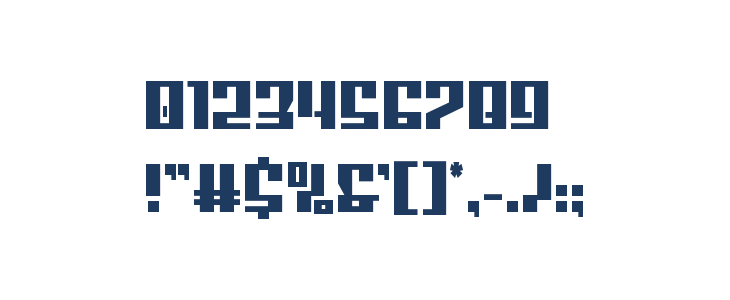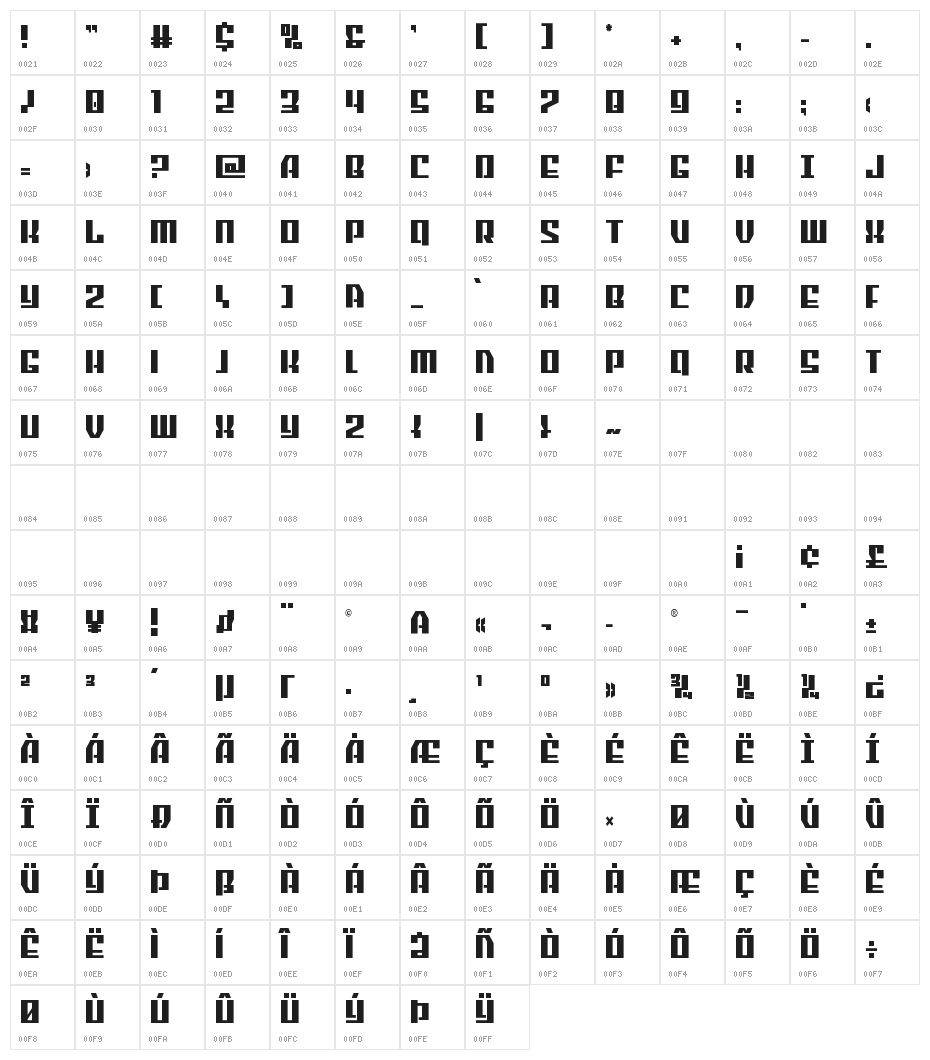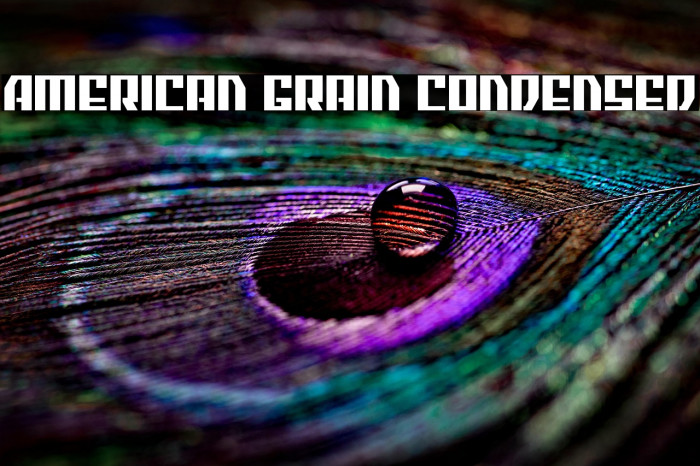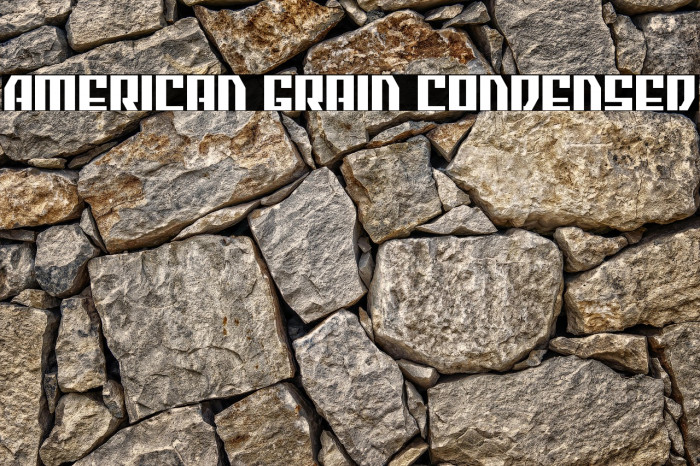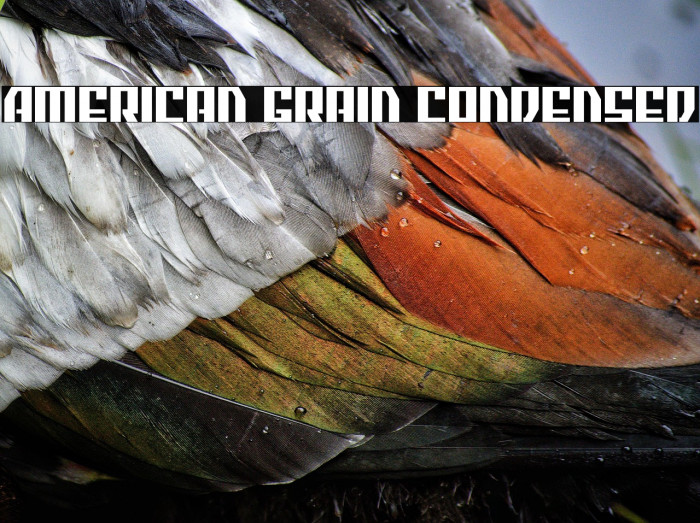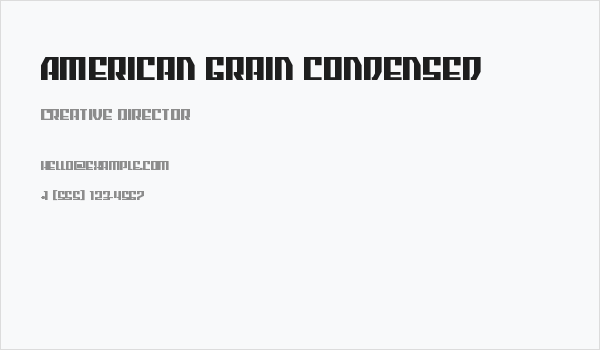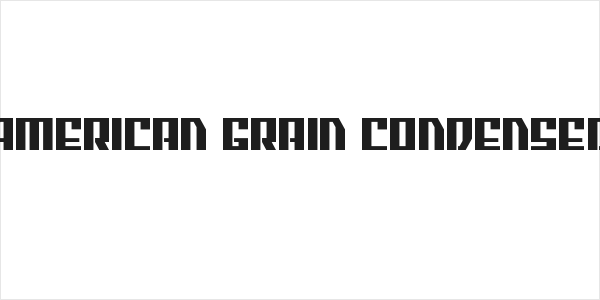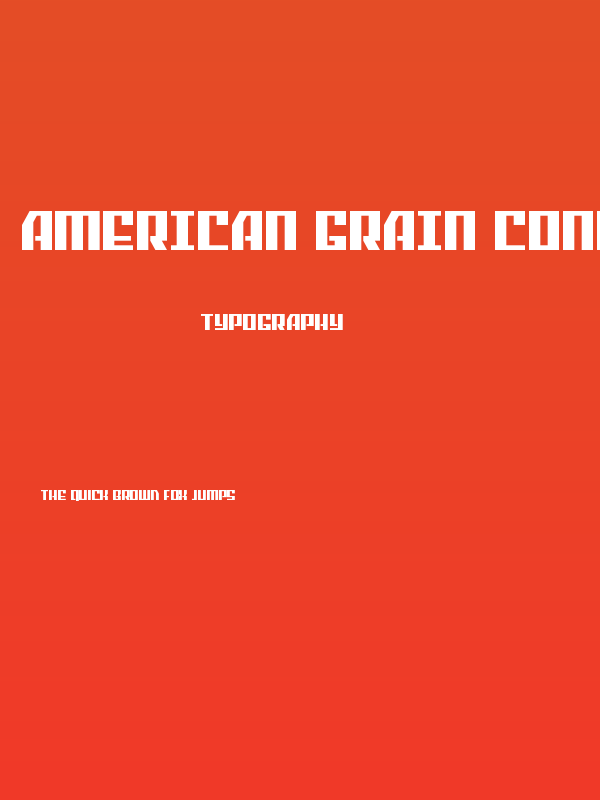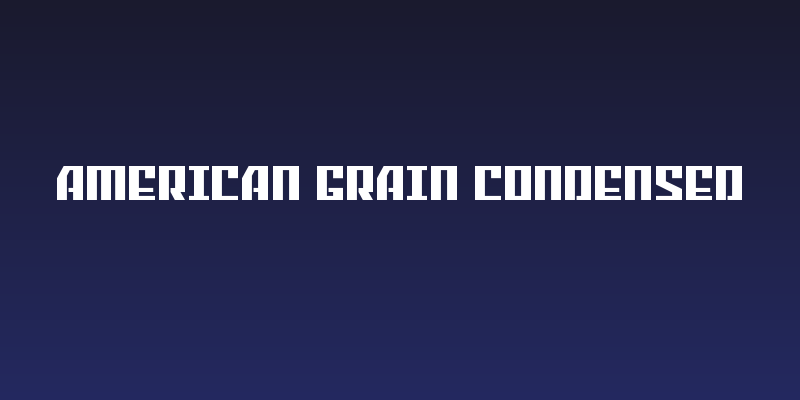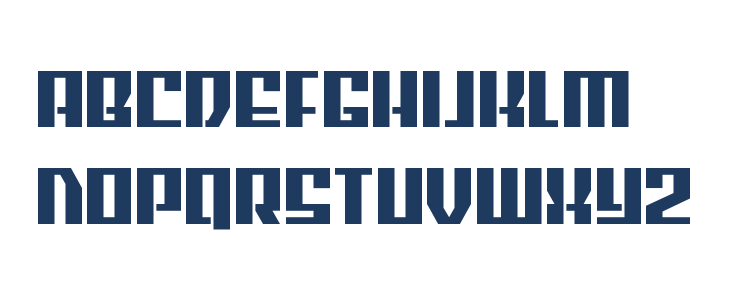
American Grain Condensed Font
American Grain Condensed Description
This font exhibits a bold and condensed style with a strong geometric influence. The characters are blocky and angular, featuring sharp edges and a uniform stroke width that gives it a robust and industrial appearance. The uppercase letters are particularly striking, with a consistent height and width that enhances the condensed nature of the font. The lowercase letters maintain the same boldness and geometric design, ensuring readability while preserving the overall aesthetic. Numbers and special characters are designed to match the bold and angular style, making them stand out prominently. This font's unique design makes it suitable for impactful and attention-grabbing text.